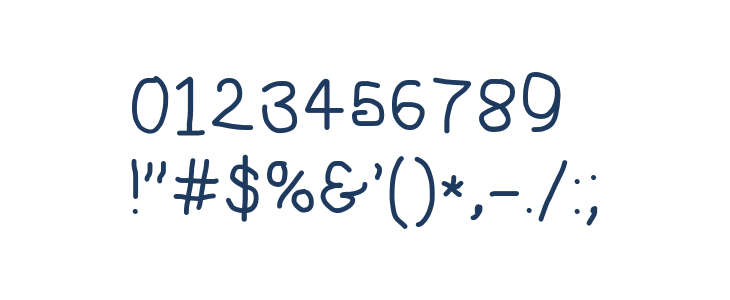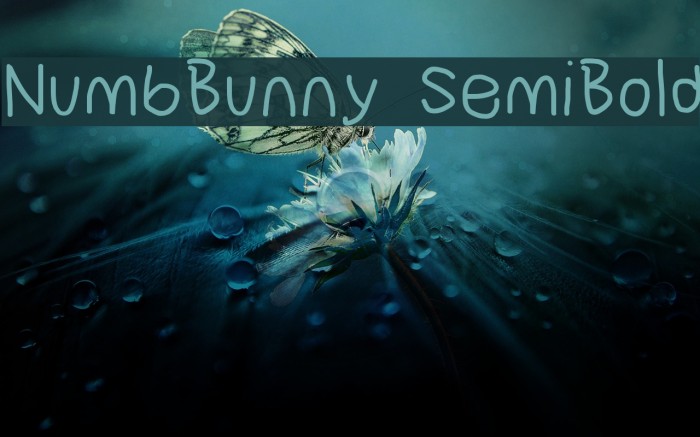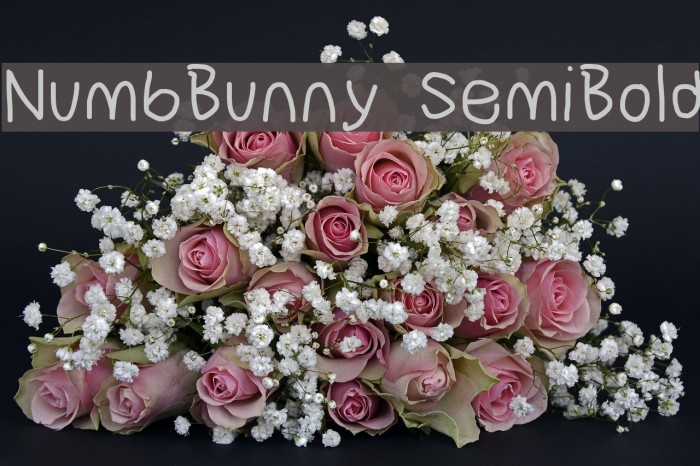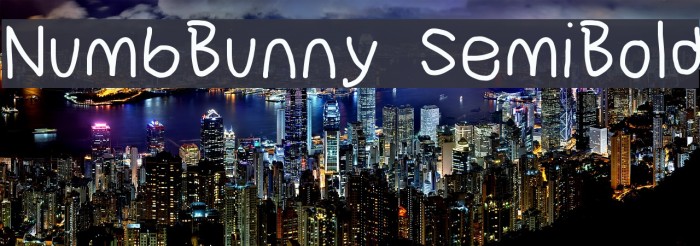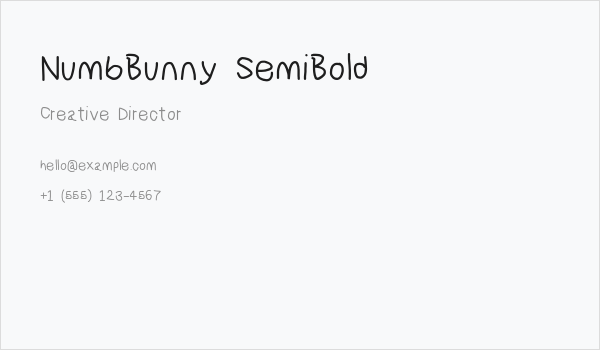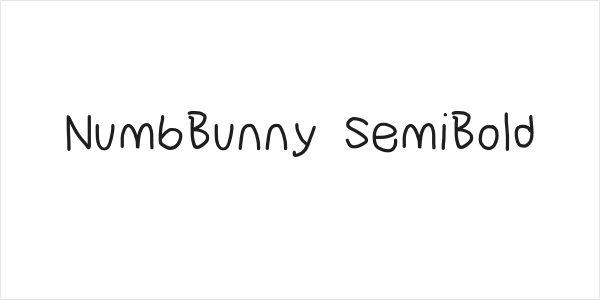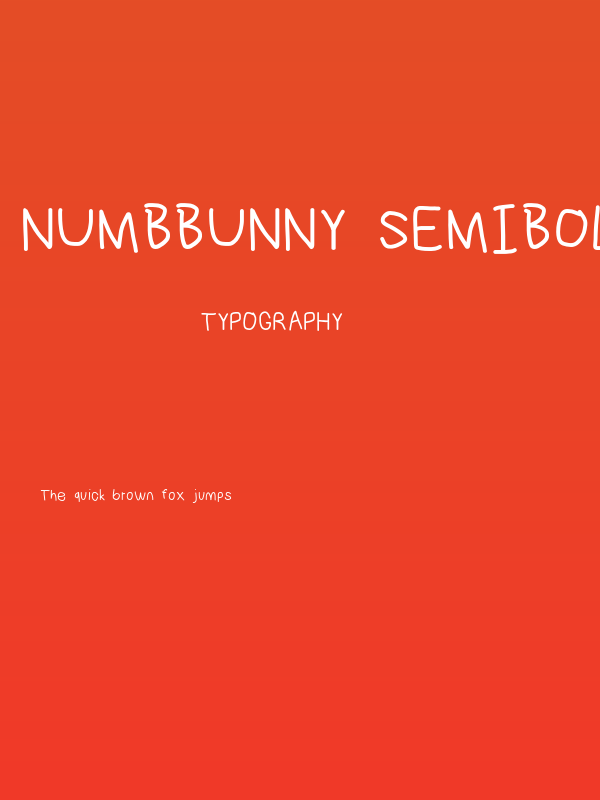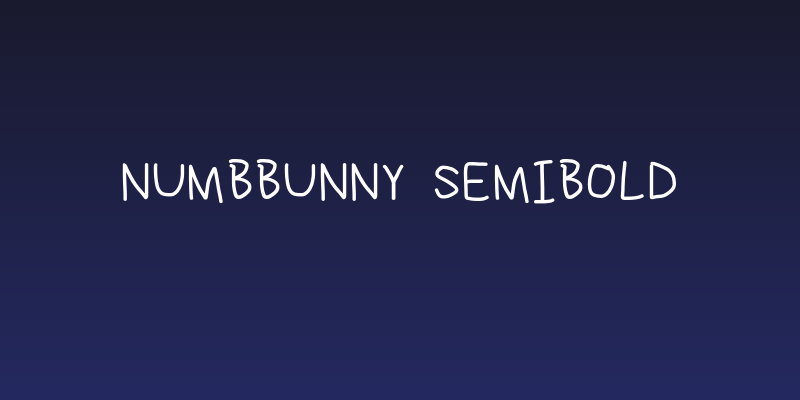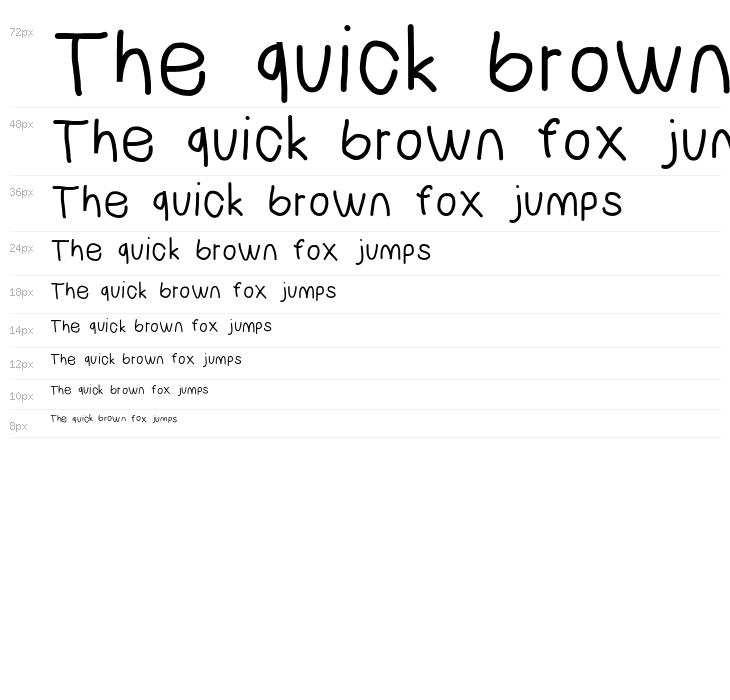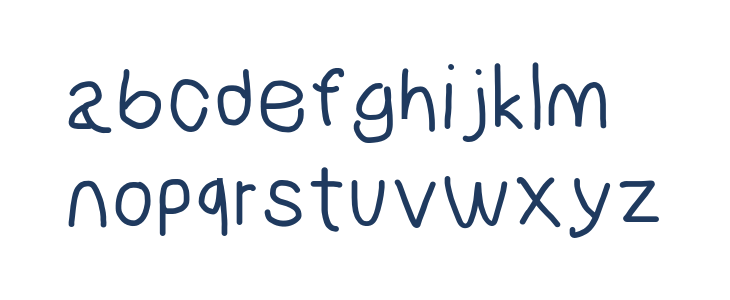
NumbBunny SemiBold Font
NumbBunny SemiBold Description
This playful and whimsical font features a handwritten style with a casual and friendly appearance. The letters are rounded and slightly irregular, giving it a charming and approachable feel. The uppercase and lowercase characters maintain a consistent flow, while the numbers and special characters are designed to complement the overall style. The font's informal nature makes it ideal for projects that require a personal touch or a fun, lighthearted vibe.
| Proposed Projects | Ideal for children's books, greeting cards, playful branding, and casual invitations. |